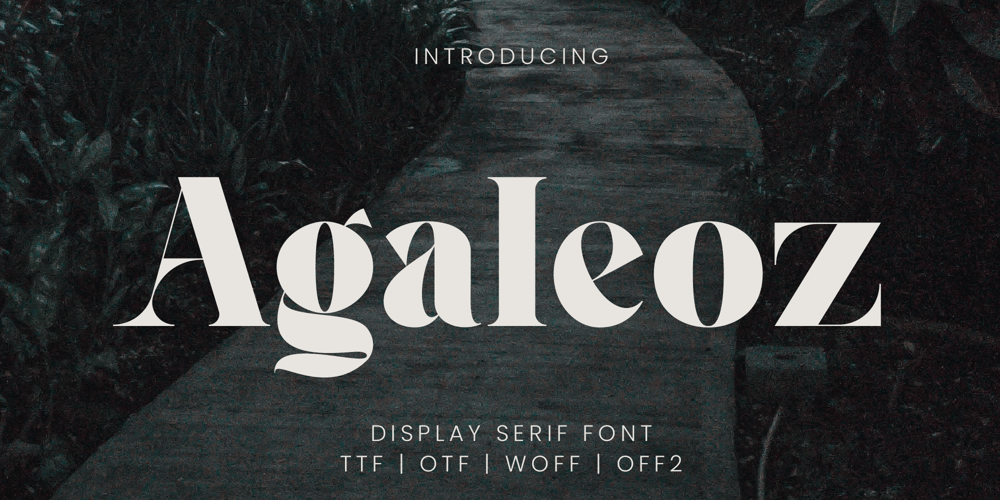
Agaleoz
Agaleoz font
Agaleoz Font Family was designed by Randi Irvan and published by Rvandtype. Agaleoz contains 1 styles and family package options. Agaleoz Display font. Its elegant and cool look makes it the perfect choice for logos, branding, invitations, stationery, wedding designs, social media posts, and so much more. Agaleoz font is PUA encoded which means you can access all of the glyphs.Features : numbers and punctuation multilingual PUA encoded